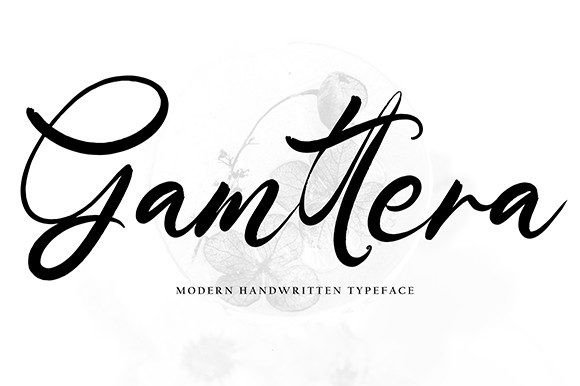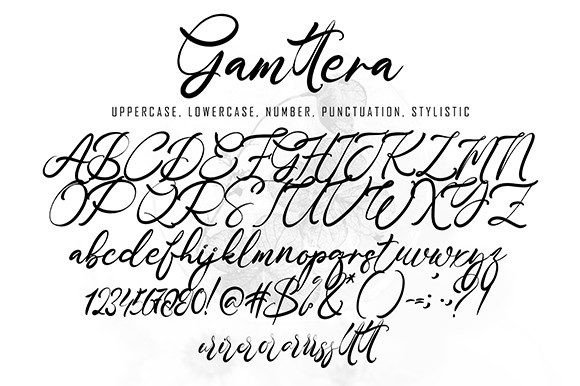
Gamtera Font
About Gamtera Font
“Gamtera” is not just a font; it’s a modern handwritten script crafted to add a touch of natural, stylish elegance to your projects. With a look that is both contemporary and genuine, this font is ideal for any extraordinary project that requires a handwritten feel. Its versatile style looks lovely on a variety of applications, including wedding invitations, thank you cards, quotes, greeting cards, logos, business cards, and any other design that benefits from a customized touch.
The natural and stylish charm of “Gamtera” is apparent in its beautifully crafted script. The font brings a sense of authenticity and modern style, making it suitable for a wide range of design projects. Whether you’re working on wedding stationery or creating a memorable logo, “Gamtera” adds a modern handwritten touch to your designs.
The versatility of “Gamtera” is showcased by its ability to enhance a broad spectrum of creative creations. Its natural and stylish nature makes it a perfect choice for projects that require an authentic and contemporary aesthetic. This font becomes a reliable asset for designers seeking a typeface that can bring a personalized touch to their work.
Adding “Gamtera” to your font collection becomes an invitation to explore the natural and stylish side of design. The font stands out as a beautiful asset that can enhance the visual appeal of your projects. Let it be the font that adds a touch of modern authenticity to your wedding invitations, logos, and various other creative endeavors.
In summary, “Gamtera” is not just a font; it’s a modern handwritten script designed to be a versatile and stylish addition to your font collection. Embrace its natural charm and contemporary versatility, and confidently add it to your creative toolbox. “Gamtera” is an invitation to explore the personalized possibilities it brings to your design projects.